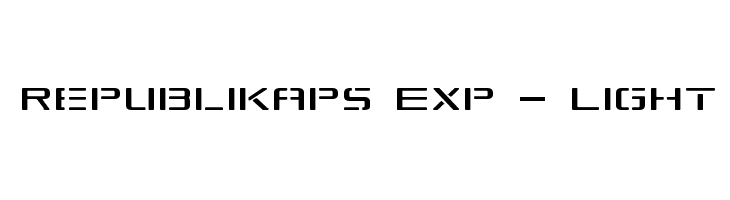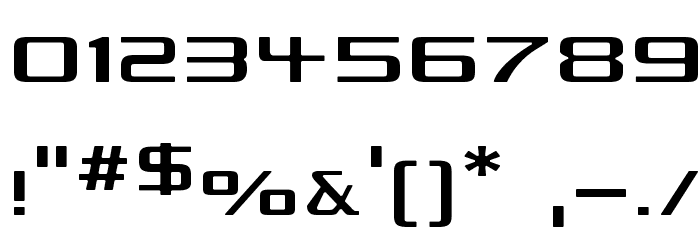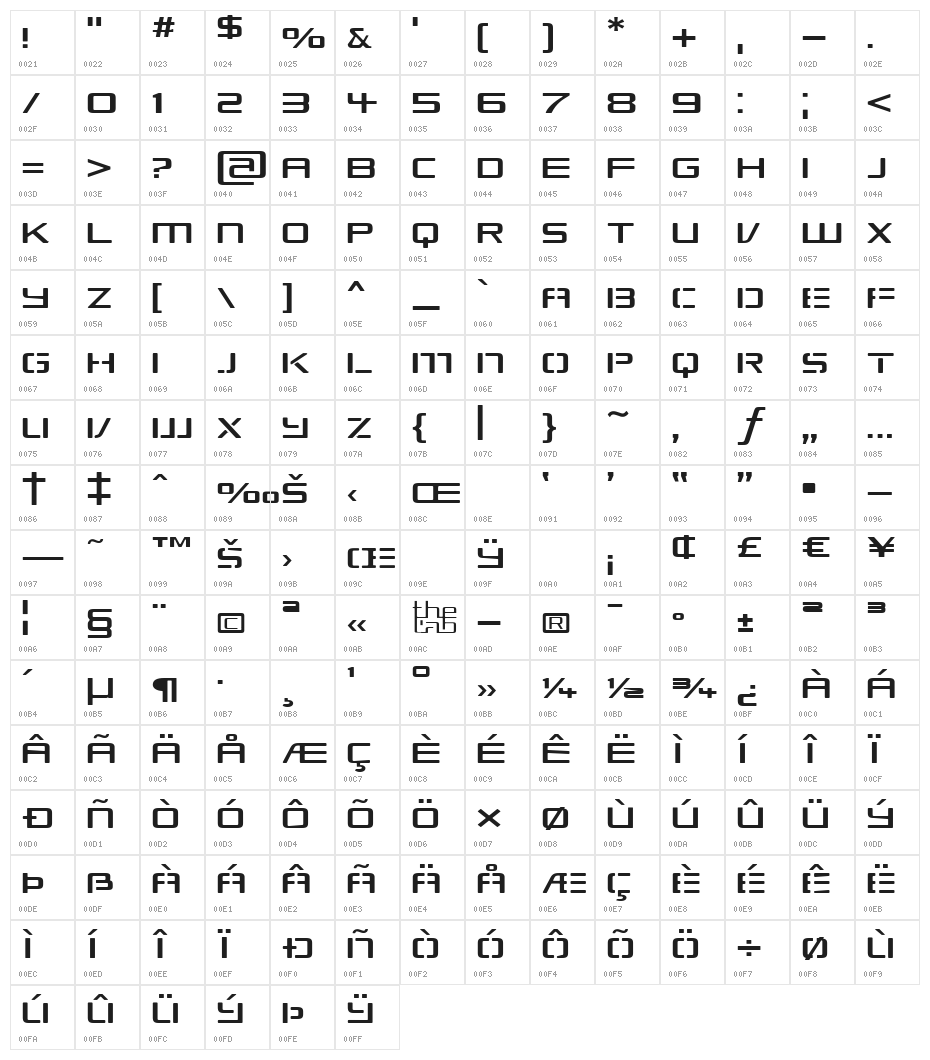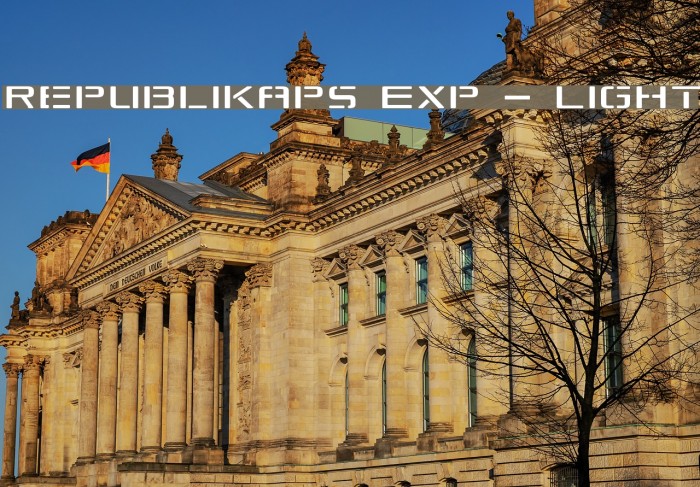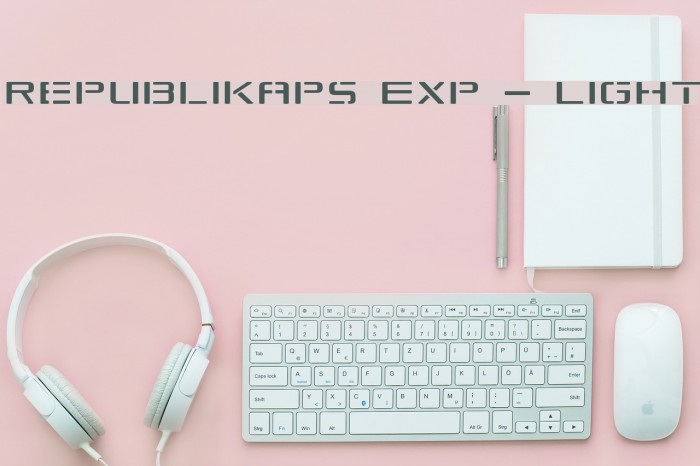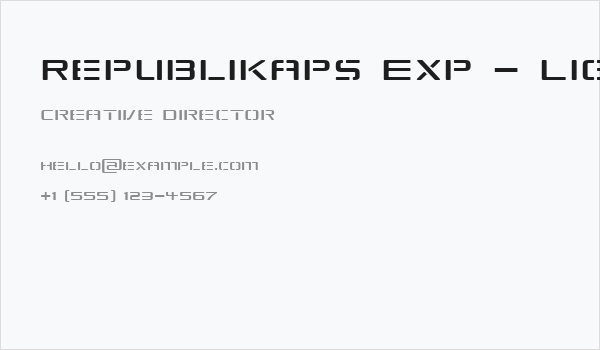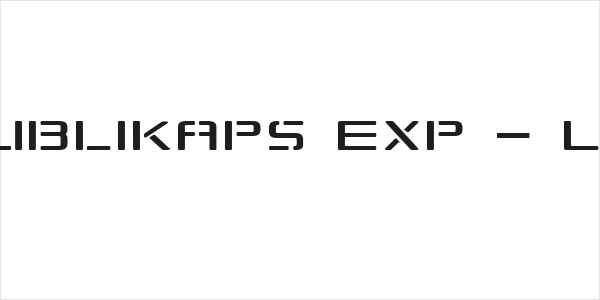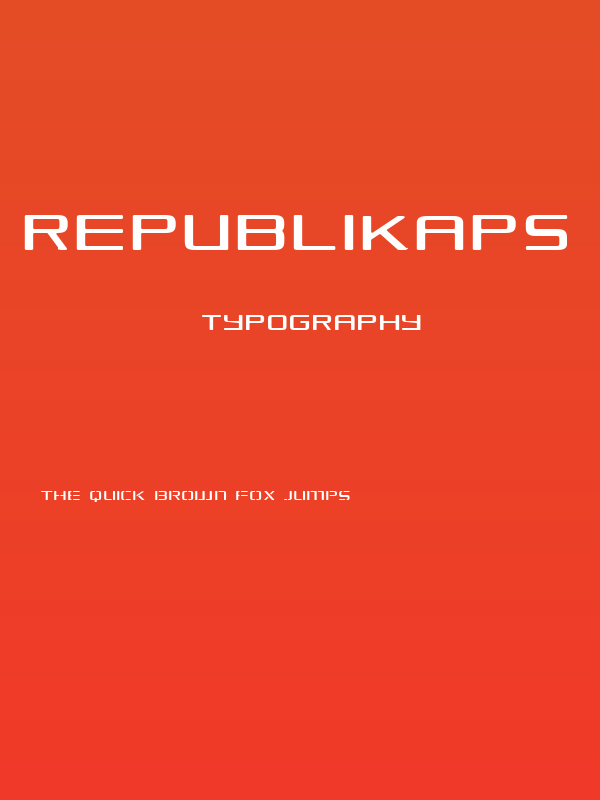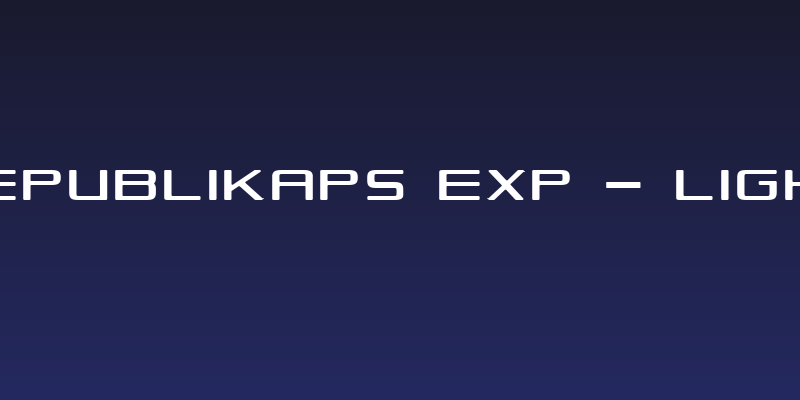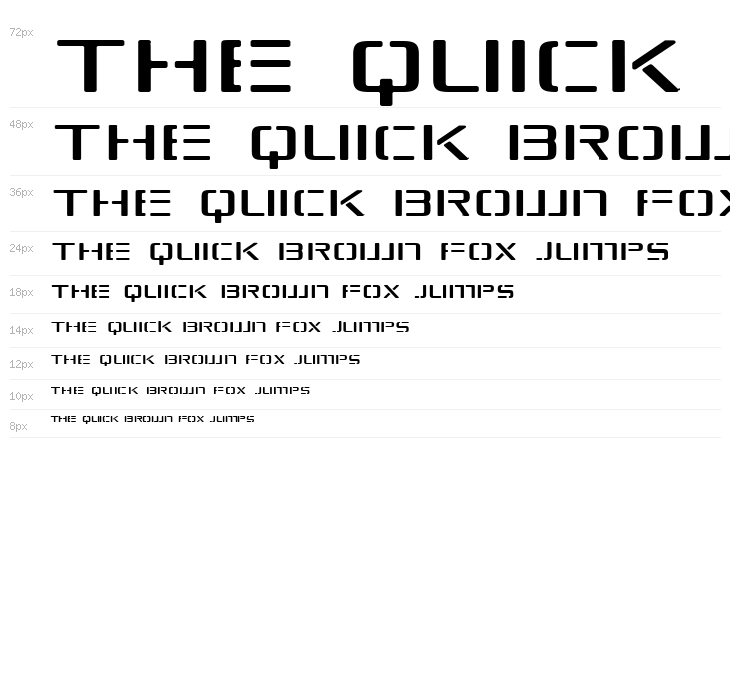
Republikaps Exp - Light Font
Republikaps Exp - Light Description
This font features a modern and geometric design with a futuristic appeal. The characters are constructed with clean, straight lines and sharp angles, giving it a technical and precise look. The uppercase and lowercase letters maintain a consistent style, with uniform stroke widths that contribute to its sleek appearance. The numerals and special characters are designed to match the overall aesthetic, ensuring a cohesive and harmonious look across all glyphs. This font is well-suited for projects that require a contemporary and cutting-edge feel.
| Proposed Projects | Ideal for technology branding, sci-fi themed designs, digital interfaces, and modern advertising. |